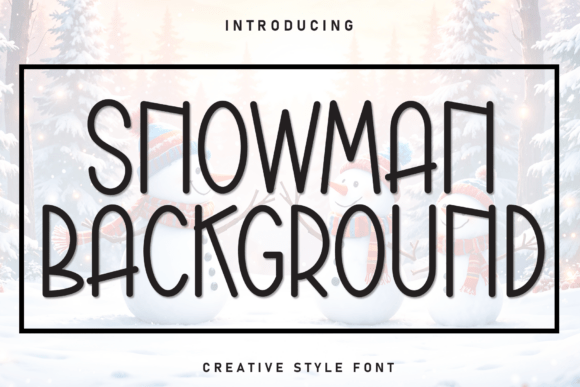
Snowman Background: A Whimsical Winter Typeface
When a design calls for more than just letters—when it needs to evoke a specific feeling—the choice of typeface becomes paramount. The Snowman Background font is one such creative asset. It’s not merely a set of characters; it’s a carefully crafted visual cue that instantly transports the viewer to a cozy, festive winter scene. This tall, slim display font has a distinct hand-drawn quality, with playful curves and a friendly, slightly irregular baseline that mimics the charm of a handwritten note found tucked inside a holiday card. Its personality is joyful, nostalgic, and approachable, making it a powerful tool for designers and creators looking to inject warmth and whimsy into their projects.
Where This Festive Font Truly Shines
Understanding the ideal context for a font like Snowman Background is key to using it effectively. Its strengths lie in applications where atmosphere and emotional connection are more critical than dense, formal readability. Think of it as the typographic equivalent of a warm, hand-knitted scarf—it adds comfort and character.
- Holiday Branding & Marketing: For small businesses, especially in retail, food, or gifts, this typeface can become a cornerstone of seasonal branding. Use it on Christmas market flyers, "From Santa" gift tags, winter sale banners, and festive packaging design. It immediately signals a holiday promotion without needing extra illustrations.
- Creative & Editorial Projects: In publishing, it’s a natural fit for the title or chapter headings of children’s winter-themed books, holiday recipe zines, or festive editions of magazines. Its whimsical nature captures the imagination, setting a playful tone for the content that follows.
- Digital & Social Media: The font’s distinctive style makes it excellent for social media graphics, Instagram story templates, and digital invitations. It stands out in a crowded feed, conveying a clear seasonal message at a glance. It’s also perfect for web design elements like holiday countdown banners or special announcement headers.
- Personal & Craft Projects: Hobbyists and crafters will find it invaluable for creating personalized stationery, scrapbook layouts, custom party invitations, or decorative quotes for wall art. Its friendly style makes it accessible and fun for projects aimed at all ages.
Pairing and Practicality: Making It Work
A common pitfall with highly stylized display fonts is overuse. The tall, thin profile of Snowman Background makes it a superb headline font, but it’s not designed for body text. Its charm can become a distraction in long paragraphs, hindering readability. The real magic happens in thoughtful font pairing.
For a balanced and professional look, pair Snowman Background with a clean, simple sans serif font or a classic serif font. A neutral sans serif like Montserrat or Open Sans can provide a stable, readable foundation for body copy, allowing the whimsical headings to pop without overwhelming the design. Alternatively, a gentle, readable serif like Lora or Merriweather can add a touch of traditional elegance that complements the font’s cozy feel. Avoid pairing it with other ornate script fonts or competing handwritten fonts, as this will create visual chaos.
When evaluating the font for a project, always consider your audience and the medium. It’s a premium font designed for impact, so test it at the size you intend to use. Ensure its unique letterforms remain clear and legible. For commercial use, always verify the licensing terms to ensure they cover your intended application, whether it’s for a client’s brand identity or your own product line.
Crafting a Cohesive Winter Aesthetic
Beyond simple pairing, Snowman Background can be the anchor for an entire visual hierarchy. Its style naturally suggests a supporting cast of design elements. Imagine it set against a cool blue and white color palette, accented with simple snowflake illustrations or subtle linen textures. This creates a cohesive world that feels intentionally designed, not just decorated.
For a small business owner creating a logo design for a seasonal pop-up shop, this font could form the logotype, paired with a simple icon. For a blogger designing a holiday media kit, using it for section headers can make the document feel festive and on-brand. The key is consistency. Using Snowman Background selectively for key touchpoints—like headers, pull quotes, or important callouts—builds recognition and reinforces the festive theme throughout the entire project, whether it’s a printed brochure or a series of social media graphics.
Ultimately, the Snowman Background font is more than a creative font; it’s a strategic design asset. It solves a specific communicative challenge: how to quickly and effectively convey a sense of winter joy, nostalgia, and warmth. By understanding its personality, respecting its limitations as a display typeface, and pairing it wisely, you can leverage its charm to create designs that don’t just look good, but feel genuinely inviting. It’s a tool for telling a seasonal story, one beautifully crafted letter at a time.